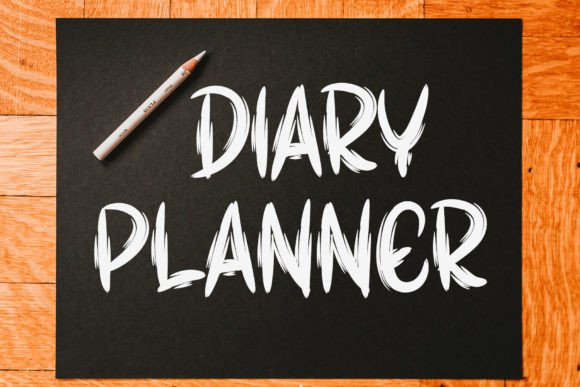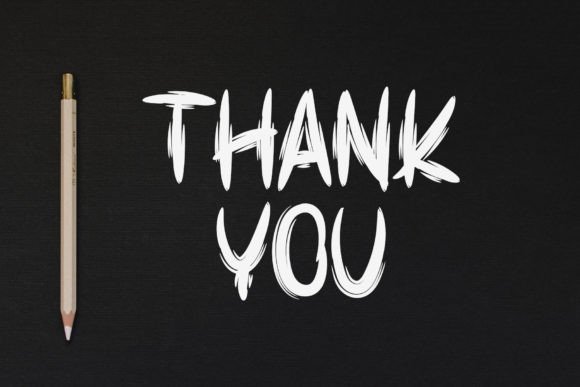
The Ultimate Guide to Best Brush Font: Adding a Dash of Whimsy to Your Designs
An Honest Review of Best Brush Font
So, what makes Best Brush Font so special? Let’s dive into the good stuff and, of course, a few quirks. 😉
- ✨ Unique and quirky design: Best Brush Font has a one-of-a-kind look that’s sure to make your designs stand out.
- ✅ Highly versatile: This font can be used in a wide range of contexts, from digital designs to print materials.
- 🎉 Fun and playful vibe: Best Brush Font is perfect for projects that require a dash of whimsy and personality.
- 🤔 Limited use in formal contexts: Best Brush Font is, by its nature, a playful font. It might not be the best choice for formal or professional projects.
- ⚠️ Some letters may require manual kerning: As with any font, you might need to adjust the kerning of certain letters to get the perfect look.
Exploring OpenType Features, Glyphs, and Stylistic Alternates
One of the best things about Best Brush Font is its support for OpenType features. This means you get access to:
- Stylistic alternates: Switch between different letterforms to add more variety to your text.
- Glyphs: Use special characters and symbols to enhance your design.
The Backstory of Best Brush Font
Best Brush Font was created with the intention of bringing a bit of whimsy and fun to the world of typography. Its designer wanted to craft a font that was both unique and versatile, suitable for a wide range of creative projects. And, honestly, I think they succeeded! 😊
Q: Is Best Brush Font suitable for body text?
A: While Best Brush Font is incredibly charming, it’s primarily designed for display purposes. For body text, you might want to choose a more legible font.